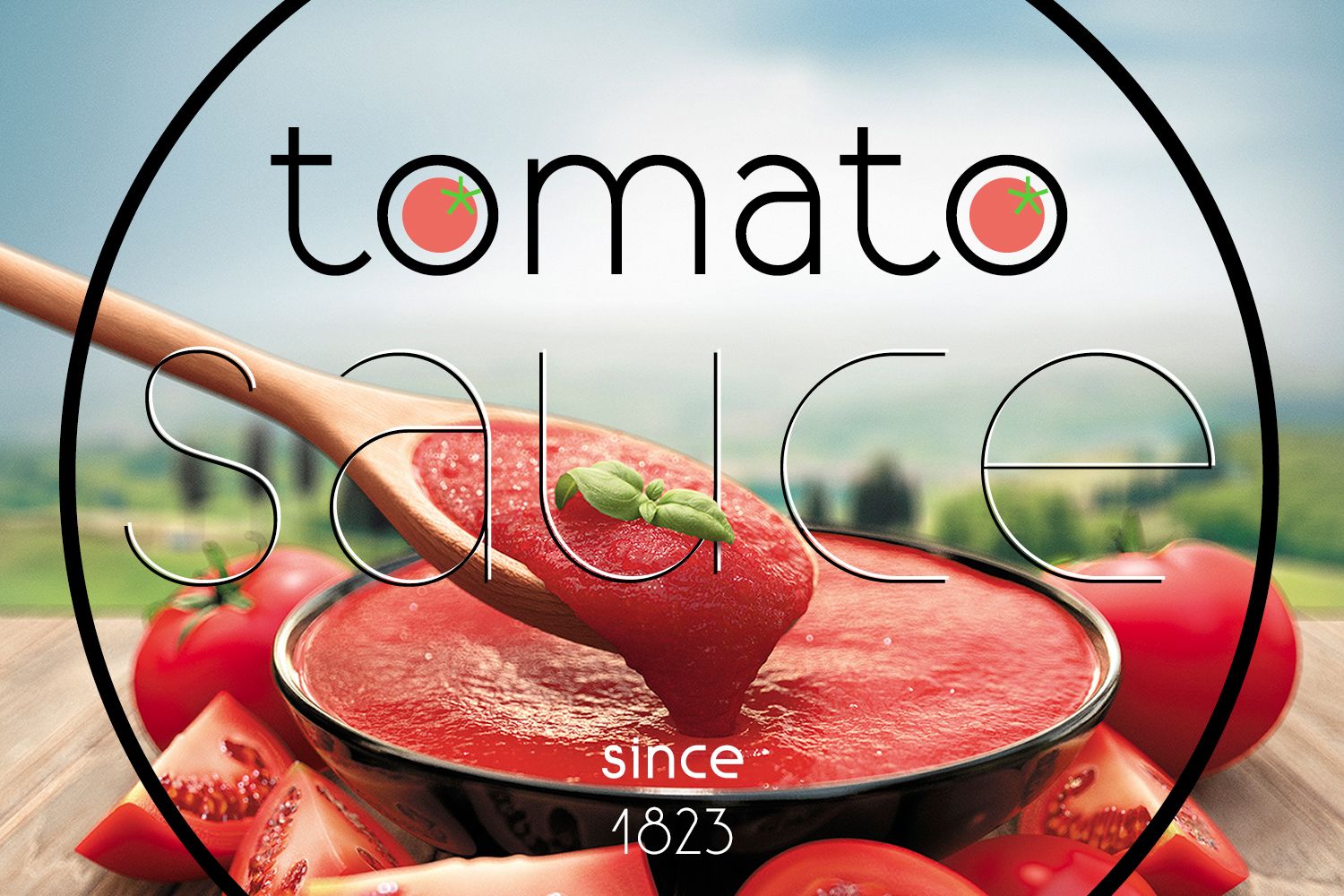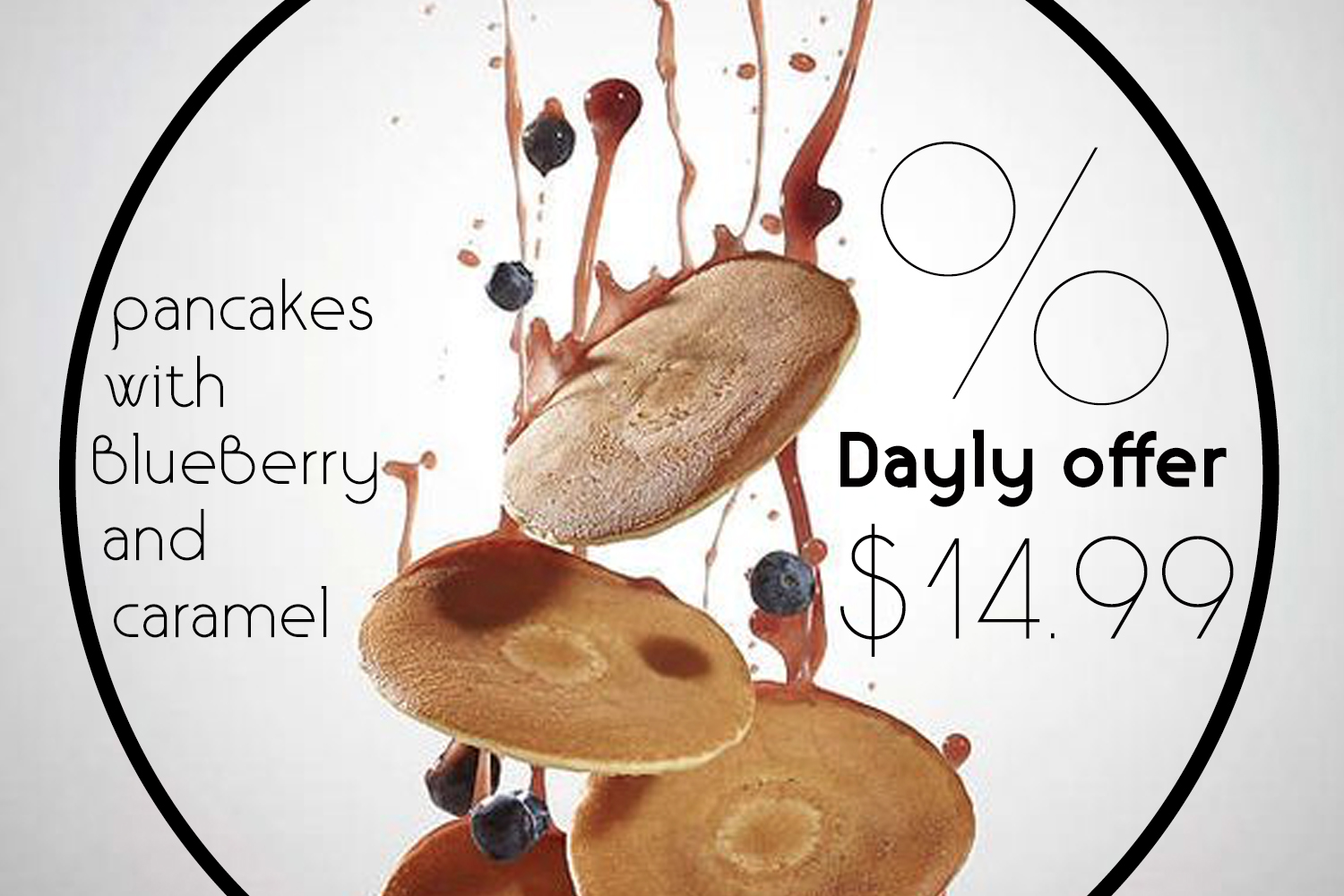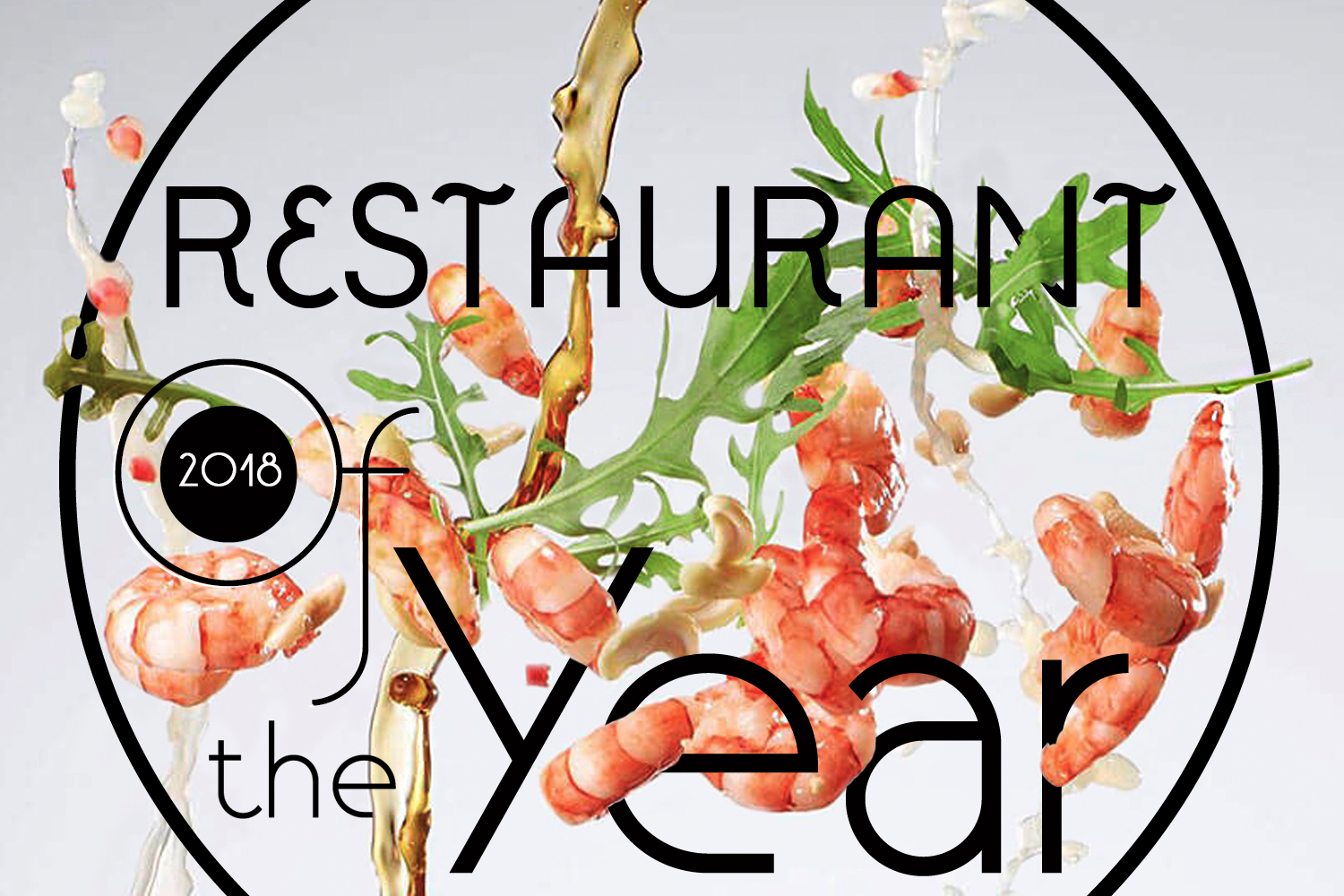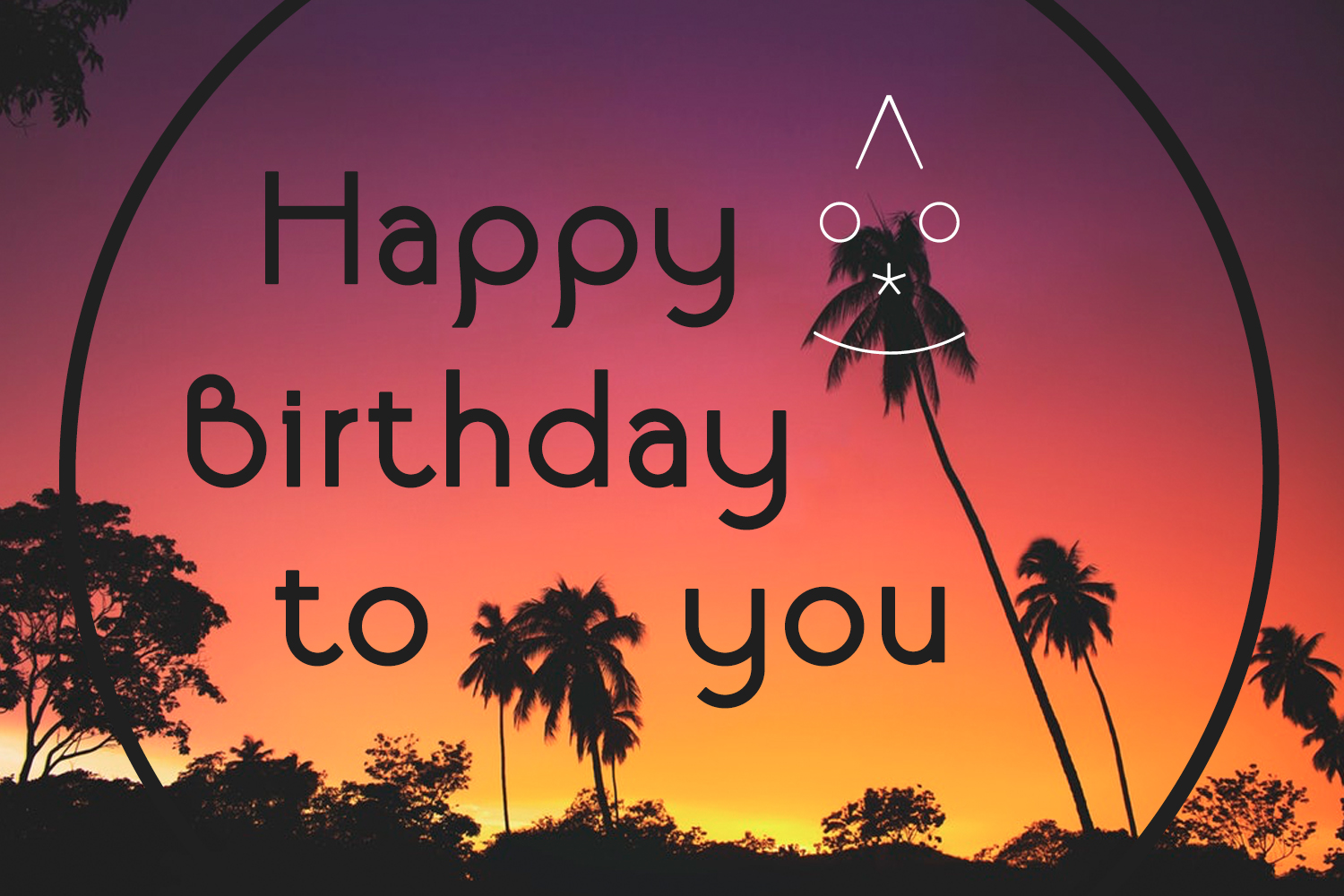
Introduction to Pronto Font
Pronto is monoline sans serif typeface with 5 styles from hair to black, giving you the ultimate in style preference and option.
This is a gorgeous and clean font that can add an incomparable flair to your designs .
Key Features of Pronto Font